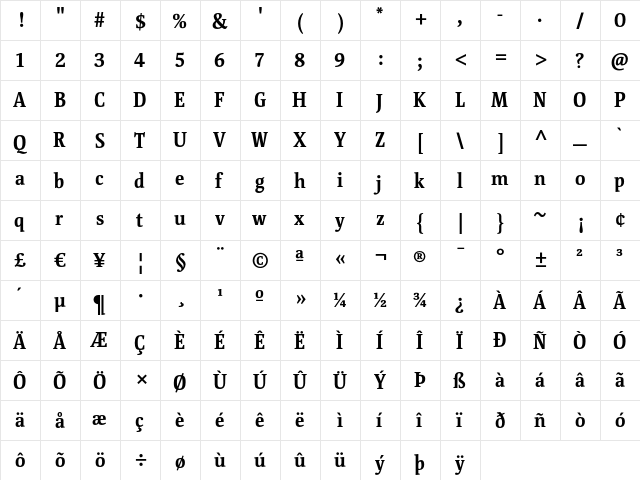
FolhaSerif SemiBold
Design Context for FolhaSerif Typeface
FolhaSerif brings classic typographic sensibility to the table — its serifs and measured letterforms reflect centuries of print heritage. The heavy weight commands attention and anchors typographic hierarchies.
Pro Tip: Set FolhaSerif with slightly loose tracking in headlines to let each letterform's detail read clearly at display sizes.